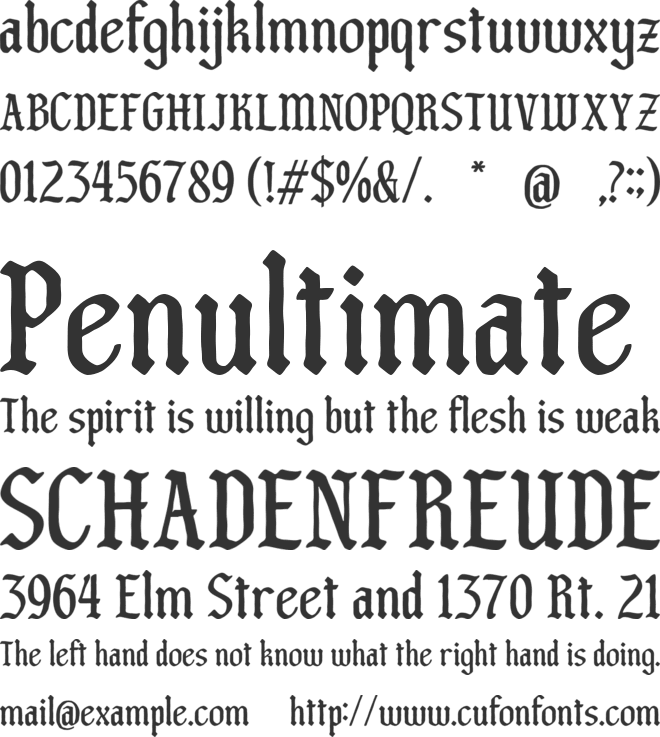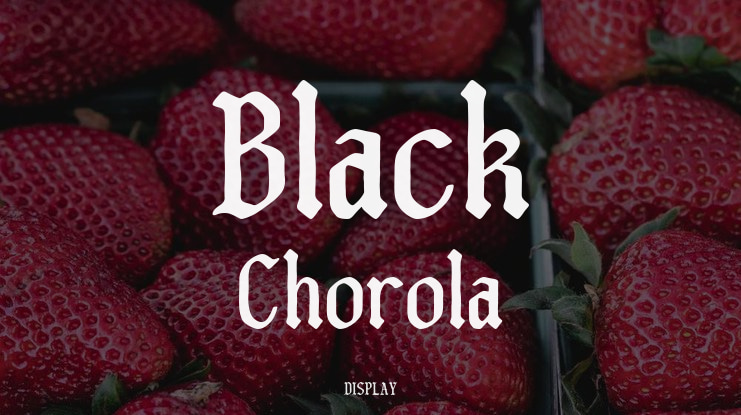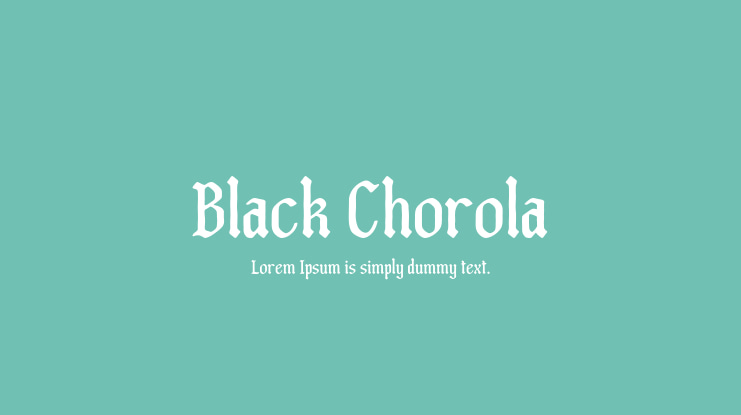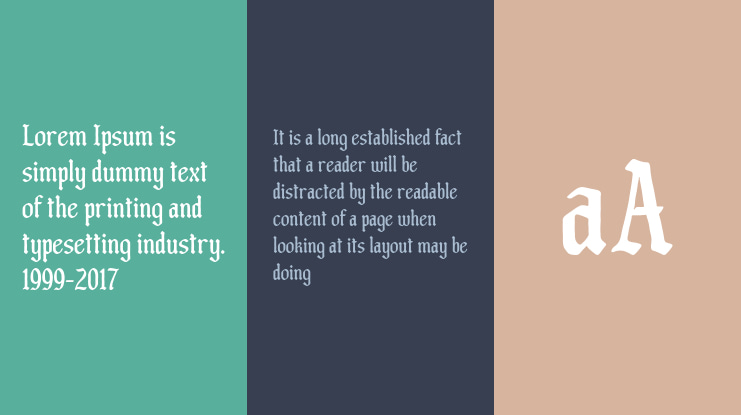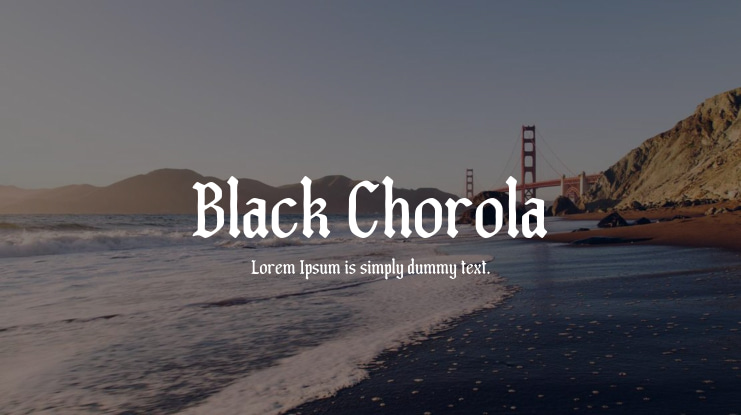
Black Chorola Font
**Black Chorola Typeface: A Bold Vintage Blackletter with a Rough Edge**
Unleash the power of old-world charm with Black Chorola Typeface, a striking blackletter font inspired by vintage design with a raw, textured twist. Perfect for creating bold statements, this font evokes the elegance and grit of historical typography, making it ideal for branding, posters, logos, packaging, or any project that calls for a timeless yet rugged aesthetic.